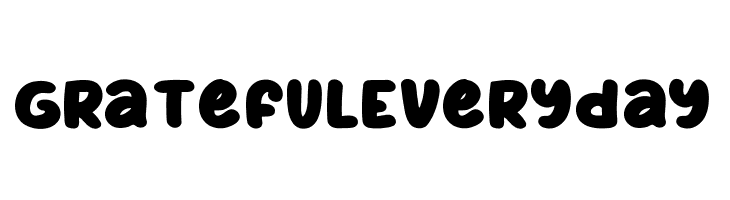
A decorative font with a hand-drawn, textured style and whimsical flair.
A playful, bold, and rounded font with a whimsical and friendly style.
A playful, bold font with rounded strokes and a whimsical charm.